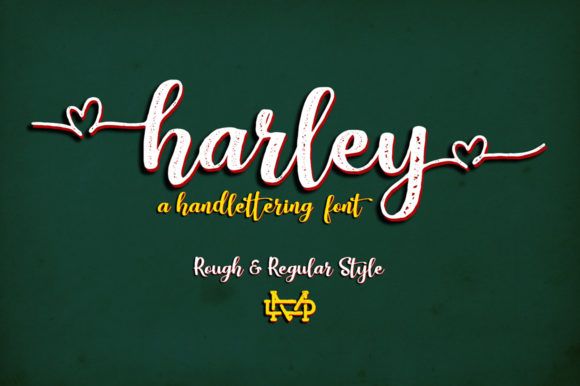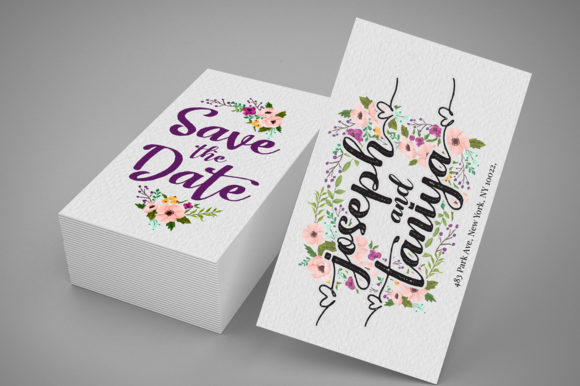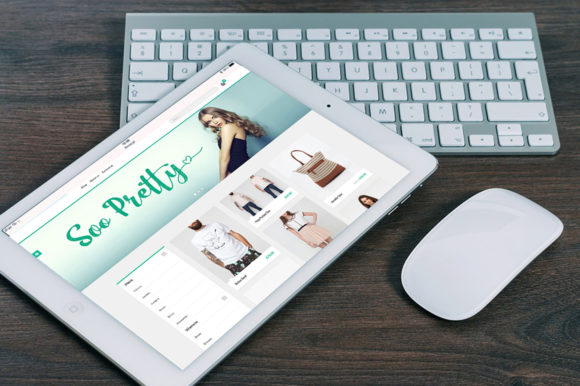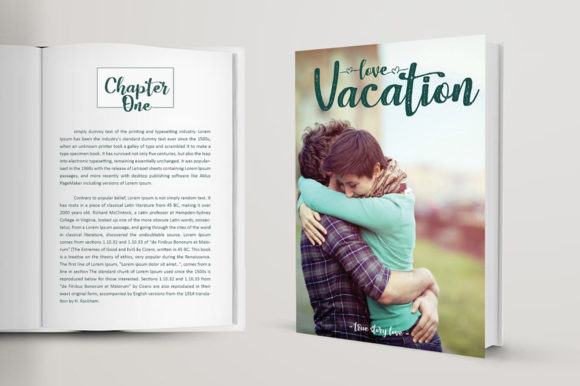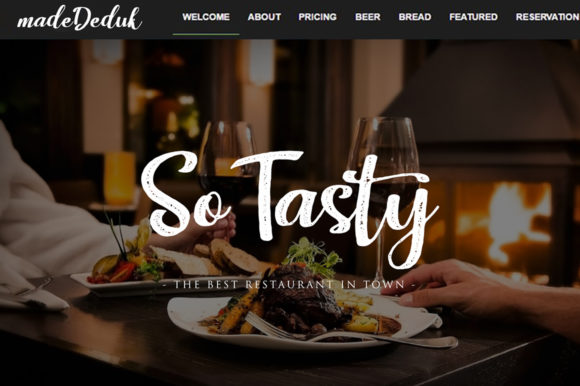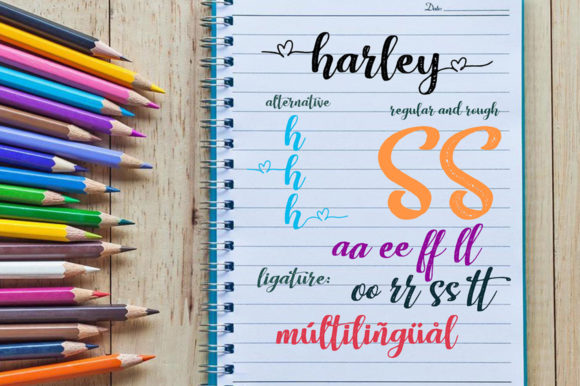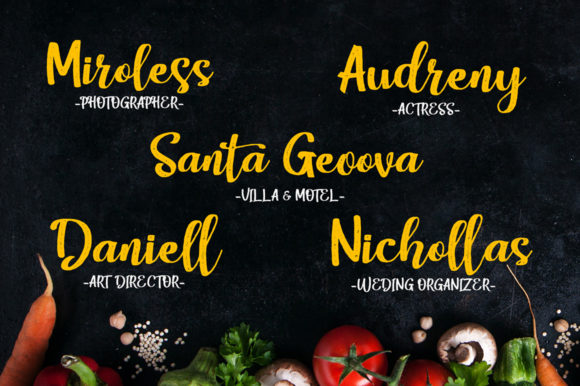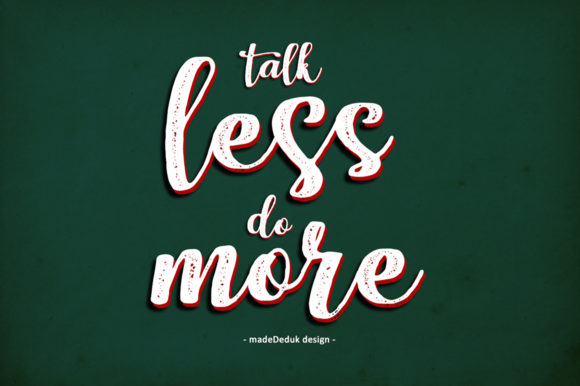
Harley Script Font
About Harley Script Font
Harley Script is a fun and beautiful handwritten font with lots of authentic charm! Get inspired by its unique feel.